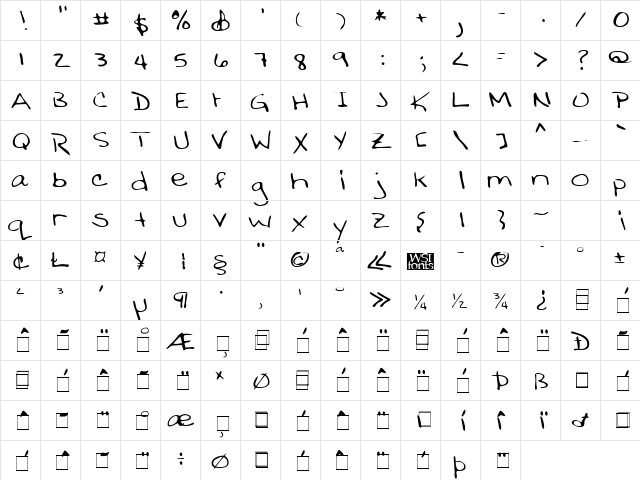
BobbiesHand Regular
Design Context for BobbiesHand Typeface
BobbiesHand flows with the natural rhythm of handwritten lettering, making it ideal for designs that call for warmth and personal expression.
Font Pairing: Combine BobbiesHand with a simple geometric sans for maximum contrast — the tension between flowing curves and clean structure is a classic typographic pairing.
Pro Tip: Pair BobbiesHand with a clean sans-serif for supporting text. The contrast between fluid script and geometric structure creates an elegant typographic hierarchy.